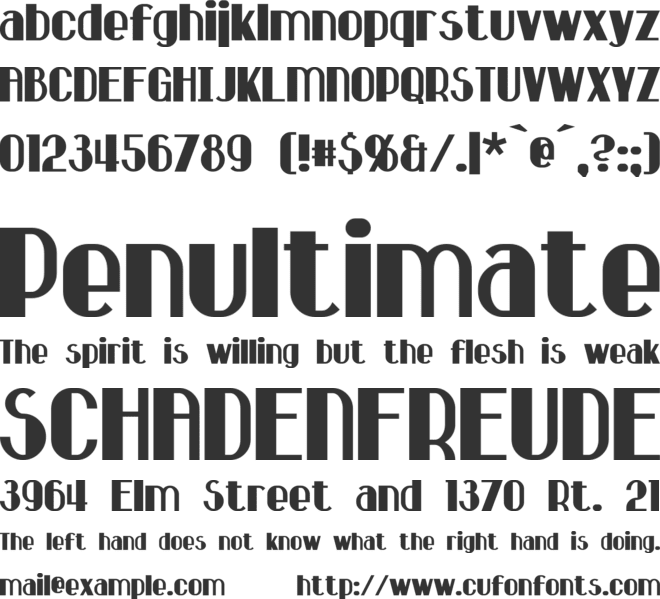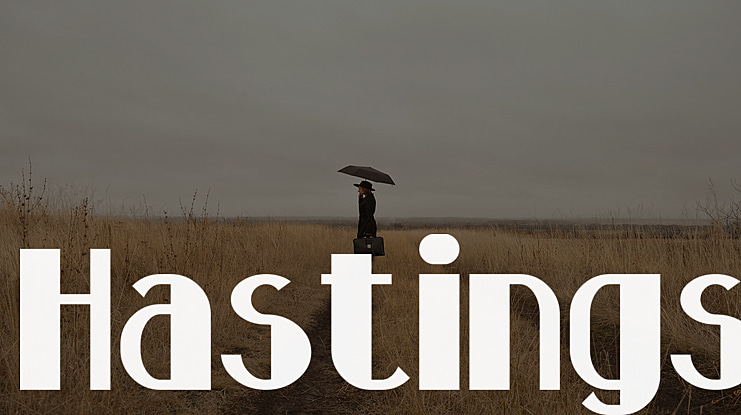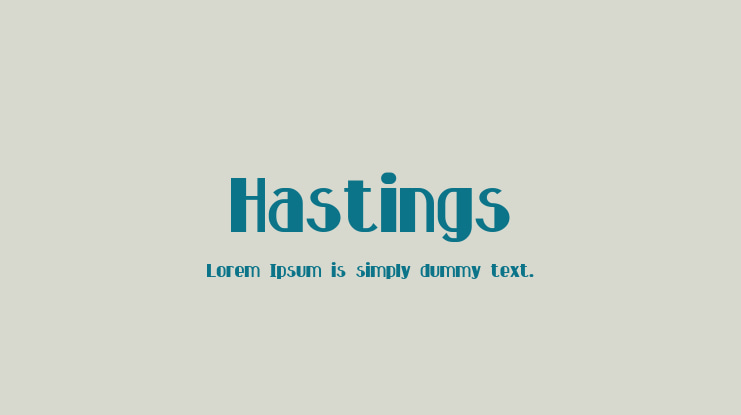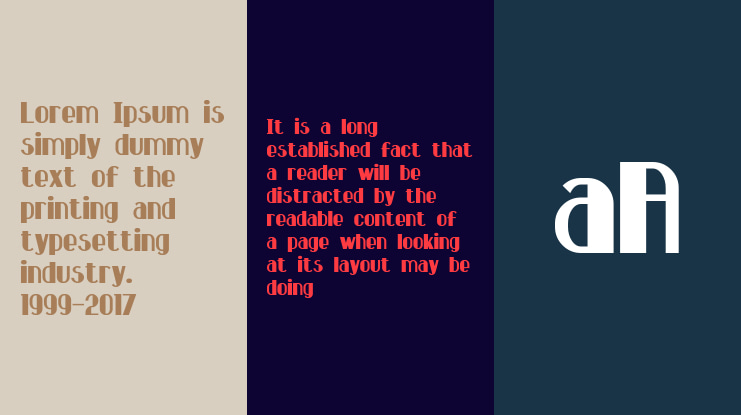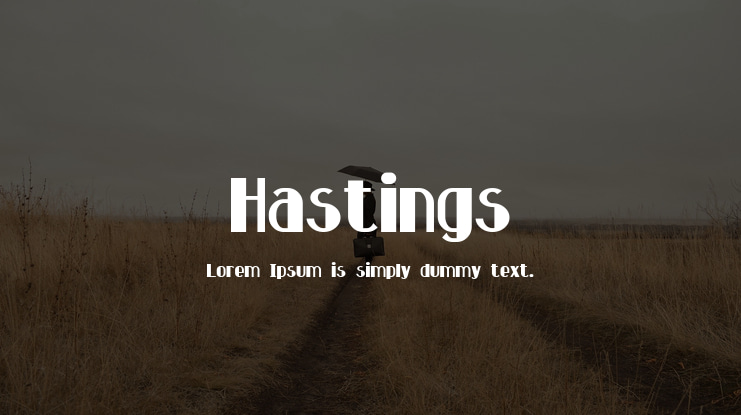
Hastings Font Family
Neale Davidson
Hastings is classic, basic art-deco face based on marquee posters found everywhere in the 1920s and 1930s. Perfect for anything that evokes the ‘pulp’ feel. Includes full alphabet, extended character set, euro. Includes bold, italic, bold-italic weights.